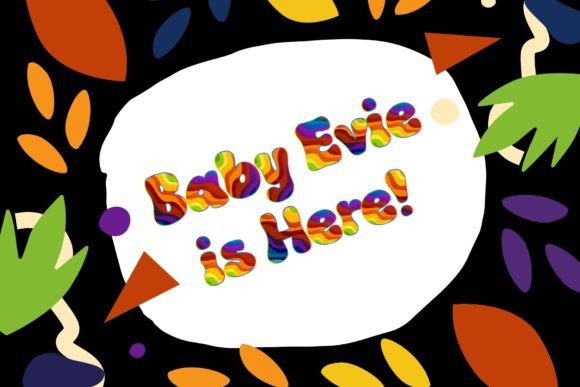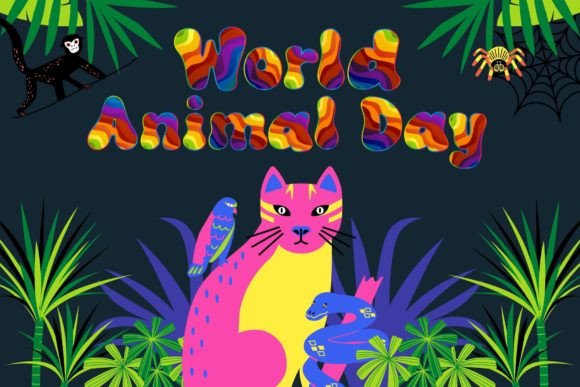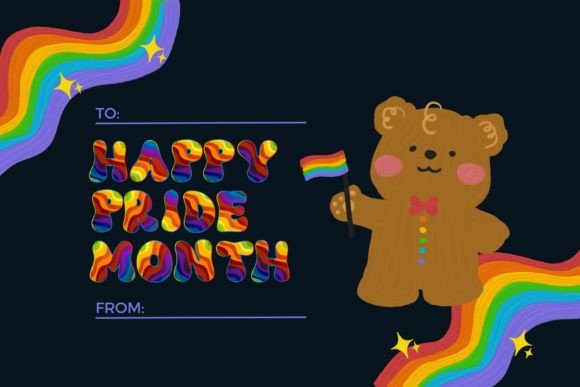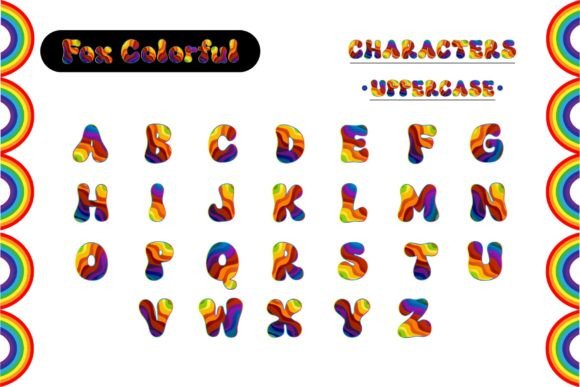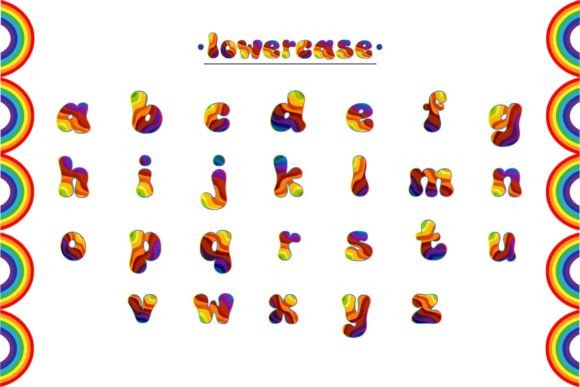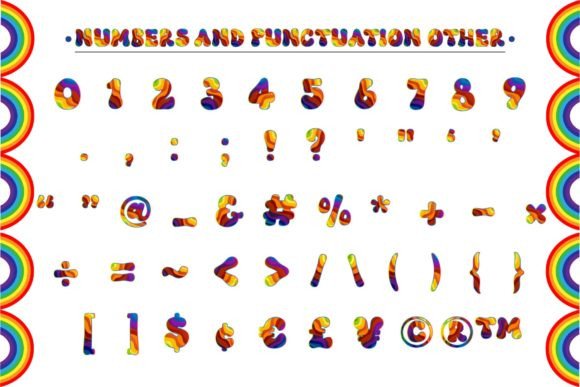
Unlock Your Creativity with the Vibrant Fox Colorful Font
Have you ever stared at a blank page, desperate for inspiration to strike? You’ve got a project in mind, but the words just won’t come together. That’s where the magic of typography comes in – a well-chosen font can elevate your design and bring your vision to life.
Enter the Fox Colorful Font, a fun and playful typeface that’s sure to captivate your audience. This colorful font is perfect for designers looking to add a pop of personality to their projects. From invitations and social media posts to greeting cards and stationary art, Fox Colorful Font is the perfect tool to help you express your creativity and showcase your unique style.
Key Features of Fox Colorful Font
- Unique Characteristics: The font features a unique blend of modern and vintage elements, with intricate details and a wide range of colors to create a playful and eye-catching effect.
- Legibility: Despite its decorative nature, Fox Colorful Font is designed to be highly legible, making it suitable for body text, headings, and other types of typography.
- Color Variations: The font includes a range of color variations, allowing designers to experiment with different hues and shades to match their brand identity or design aesthetic.
Designer Review: Fox Colorful Font
Overall, I think the Fox Colorful Font has a lot of potential, but it also has some areas where it falls short. ✨ First, I love the playful and whimsical feel of the font. It’s perfect for designs that need a bit of fun and personality. The bold lines and vibrant colors add a lot of visual interest and make it stand out. ✨
Another thing that works well is the flexibility of the font. It comes in a range of weights and styles, making it easy to use in a variety of contexts. Whether you’re designing a children’s book or a social media graphic, Fox Colorful Font can adapt to fit your needs. ✨
However, I do have some concerns about the limitations of the font. ⚠️ For one, it’s not ideal for text-heavy designs. The bold lines and vibrant colors can be overwhelming, making it difficult to read large blocks of text. ⚠️ Additionally, the font may not be suitable for professional or corporate designs, as it comes across as a bit too playful and casual. ⚠️
Ultimately, I think the Fox Colorful Font is a great choice for designers who want to add a bit of whimsy and fun to their designs. Just be mindful of its limitations and use it sparingly in text-heavy designs. With a bit of creative restraint, Fox Colorful Font can be a valuable addition to your design toolkit.
- Playful and whimsical feel
- Flexible and adaptable to various contexts
- Range of weights and styles
- Perfect for fun and creative designs
Tips for Getting the Most Out of Fox Colorful Font
Use Fox Colorful Font to add a playful and whimsical touch to your designs.
Experiment with different font combinations to create a unique and eye-catching look.
Use Fox Colorful Font in conjunction with other design elements, such as images and shapes, to add visual interest to your design.
Fox Colorful Font is ideal for use in:
Children’s books and educational materials.
Playful marketing campaigns and advertisements.
Whimsical greeting cards and party invitations.
Alternatives to Fox Colorful Font
Q: What is the recommended font size for using the Fox Colorful Font?
The Fox Colorful Font is designed to be versatile and can be used at a range of font sizes. However, for optimal legibility, we recommend using font sizes between 12 and 24 points. This will ensure that the font is clear and readable on a variety of devices and screen resolutions.